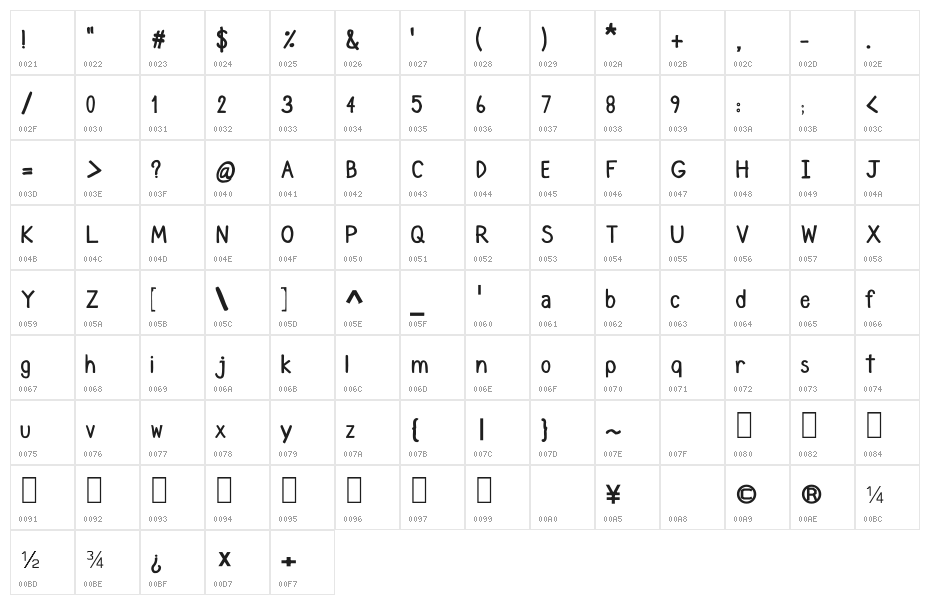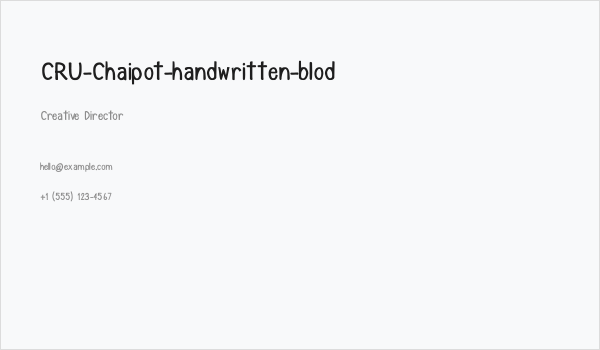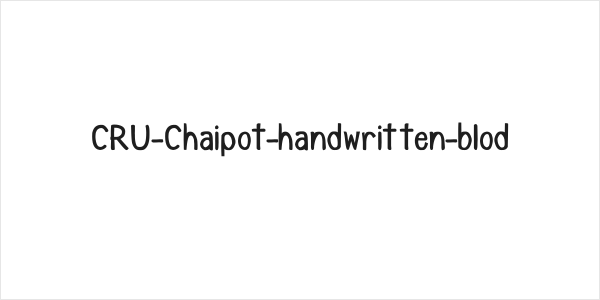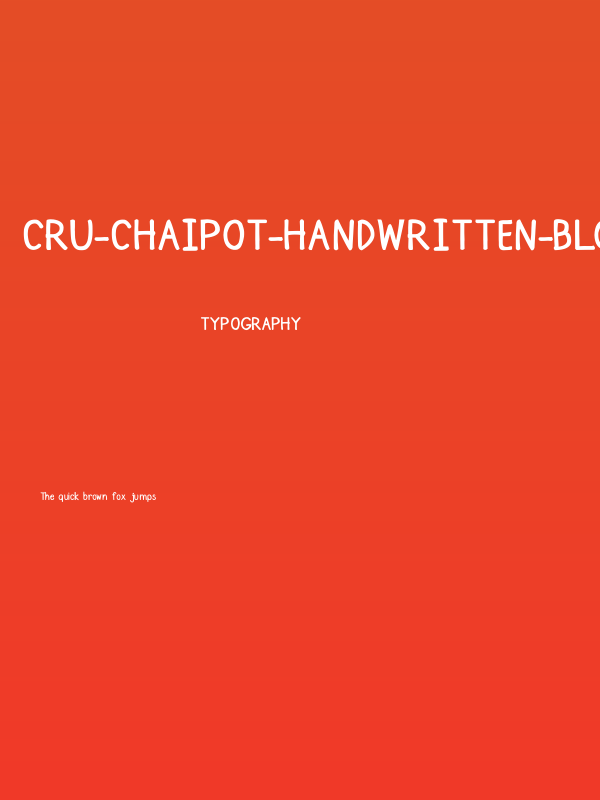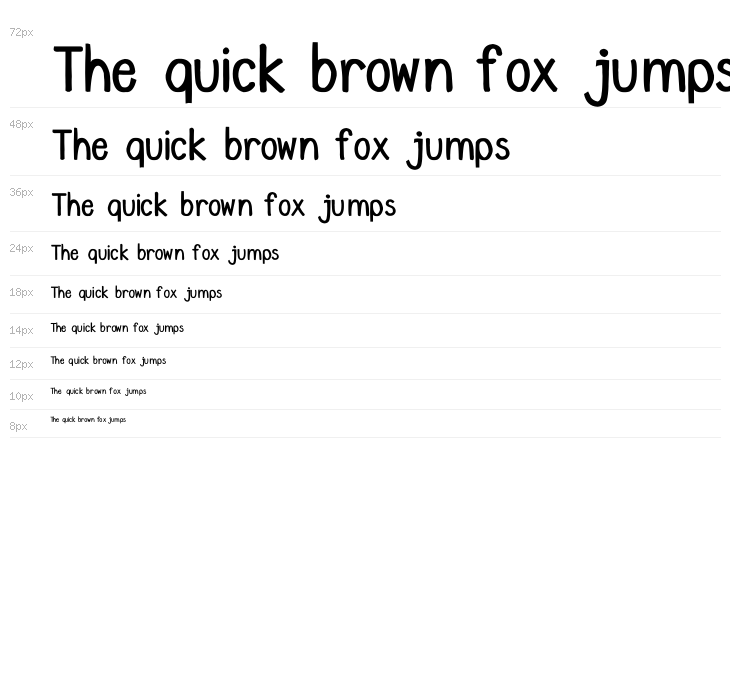
CRU-Chaipot-handwritten-blod Font
CRU-Chaipot-handwritten-blod Description
This font features a playful and casual handwritten style, characterized by its bold and rounded letterforms. The uppercase and lowercase letters maintain a consistent flow, giving it a friendly and approachable appearance. The numerals and special characters are designed to match the overall aesthetic, ensuring uniformity across all glyphs. The strokes are thick, contributing to its bold presence, while the spacing between characters is moderately wide, enhancing readability. This font exudes a sense of informality and creativity, making it suitable for projects that require a personal touch.
| Proposed Projects | Ideal for greeting cards, children's books, playful branding, and social media graphics. |